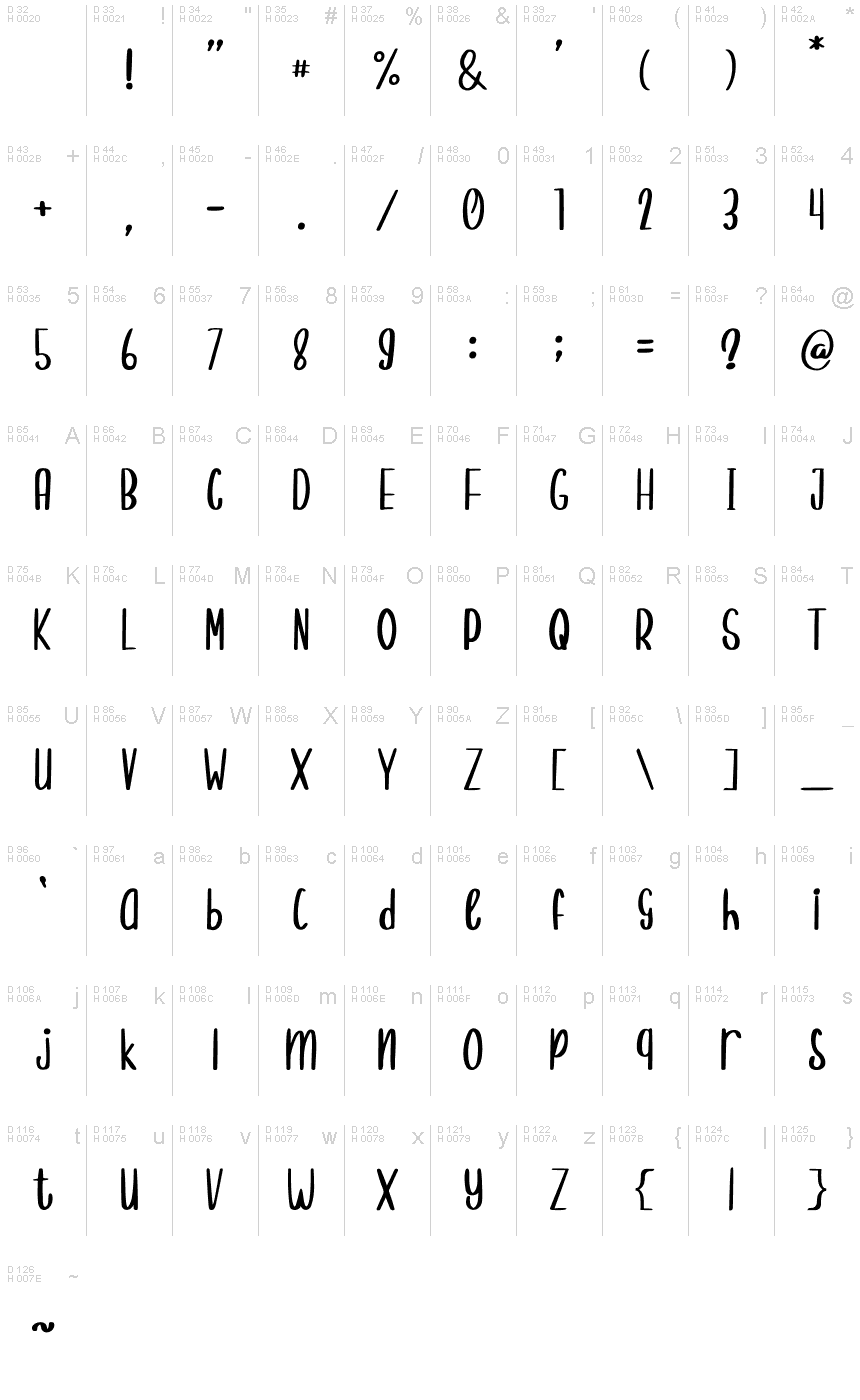
Randomly Cute
Randomly Cute. Like the name, it is a very random stroke of kid's handwriting. However, it still has the element of cuteness.
Great for any general design. It is suitable for Logo, Cards, Branding, Social Media, Youtube Thumbnail, Advertisement, Posters, any many others.
Features:
- Standard Characters (All Uppercase)
- Numerals
- Punctuation
- International Characters